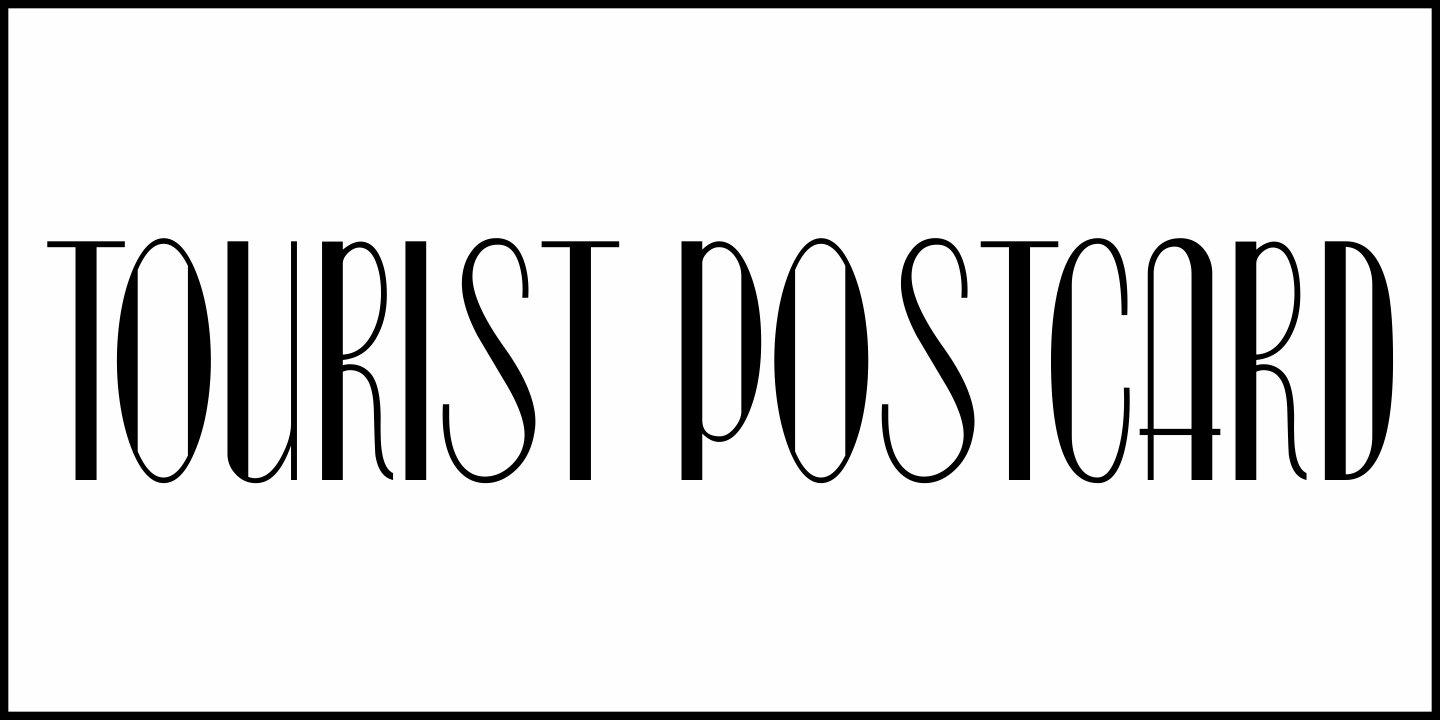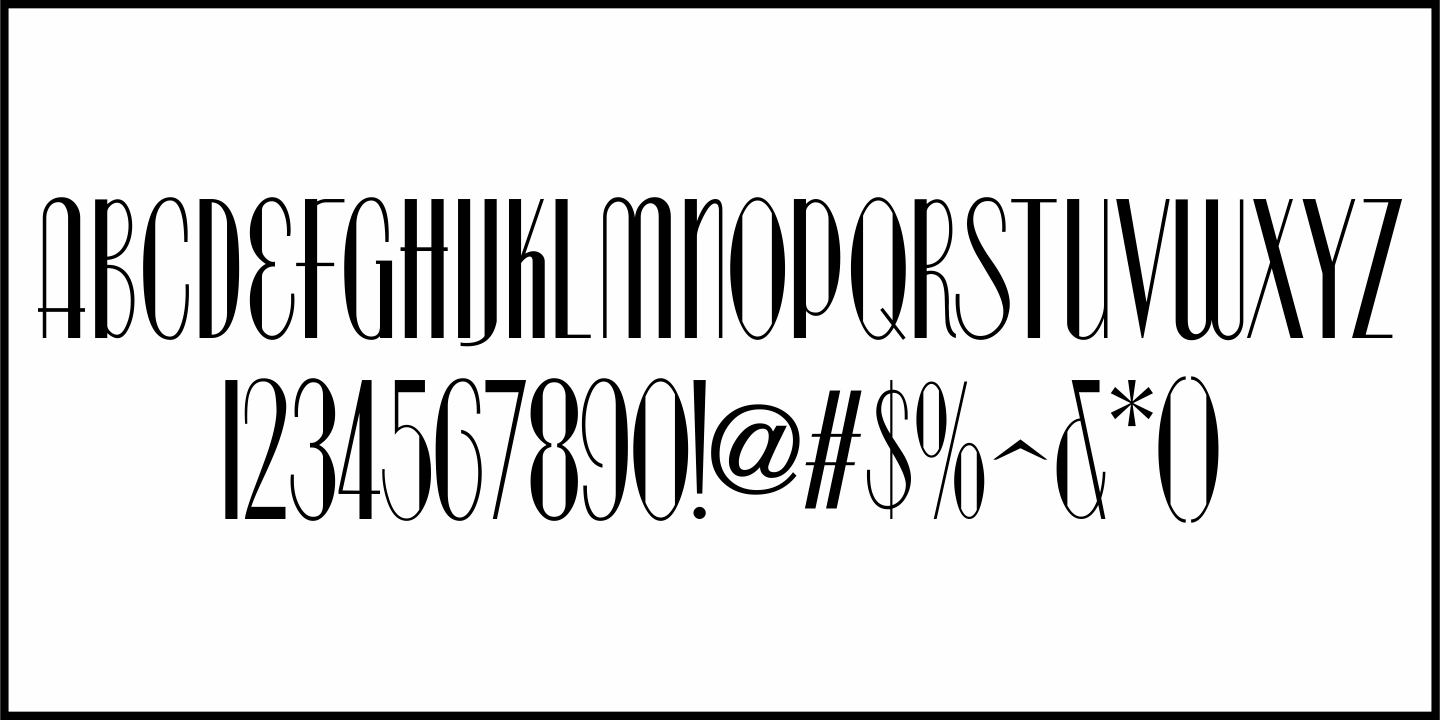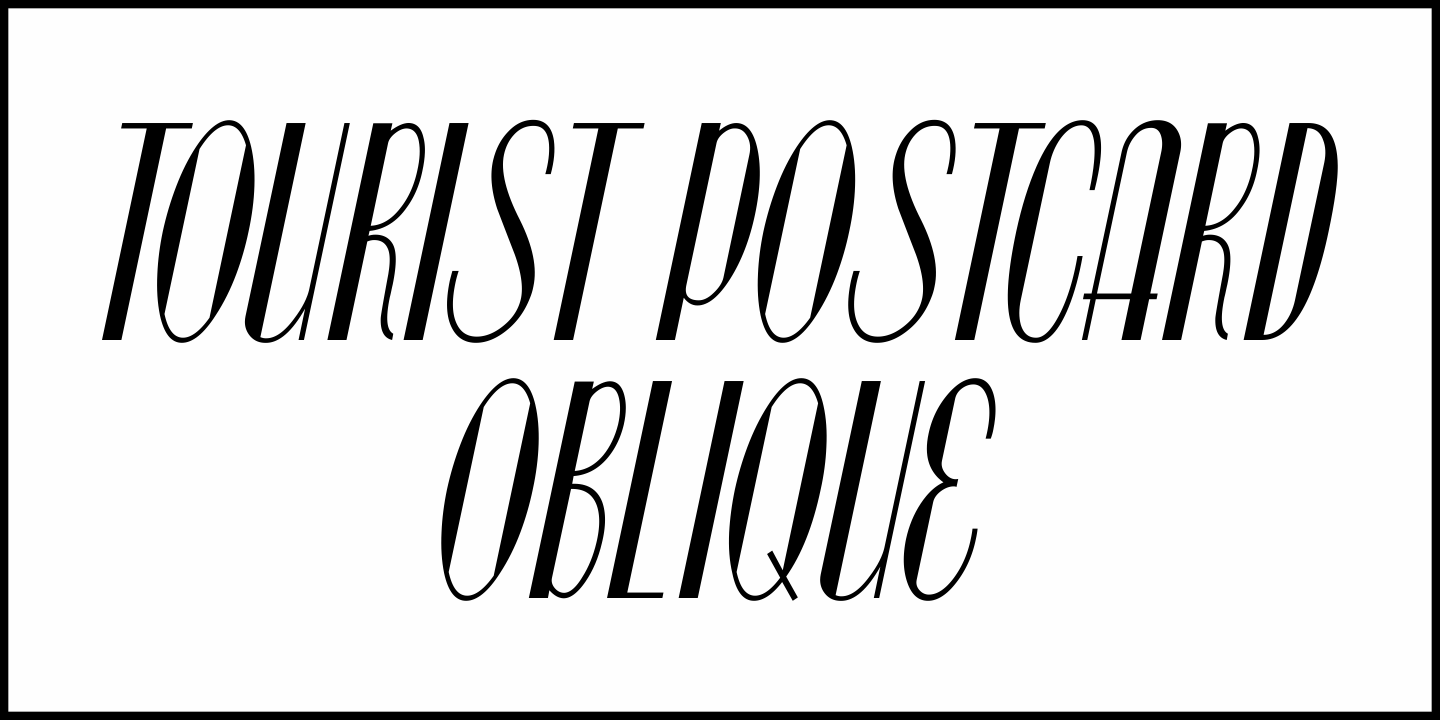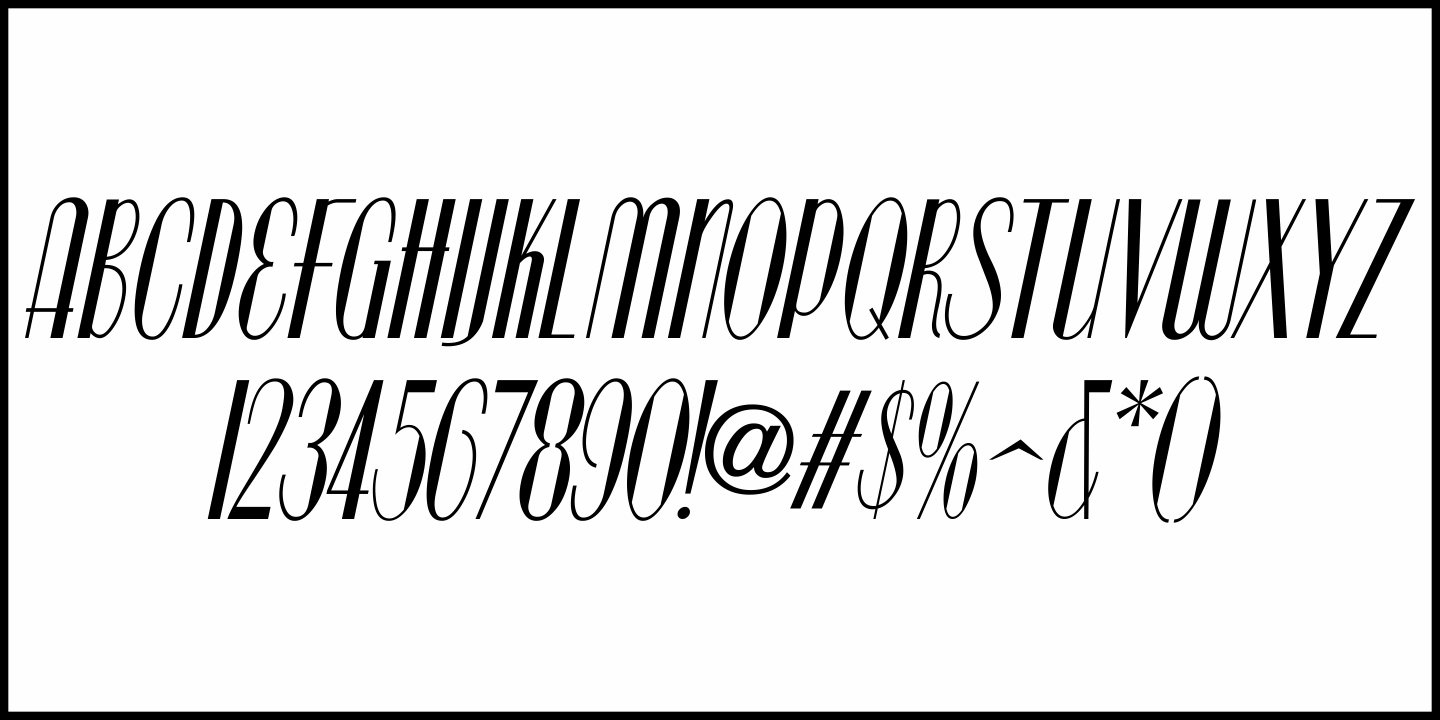
Tourist Postcard
Alf Becker graced many issues of “Signs of the Times” (a trade magazine for the sign industry) with his innovative hand lettered alphabets for others to use as design inspirations.
His 134th submission was titled “Post Card Type”, a condensed thick-and-thin stylized Art Deco design.
This served as the inspiration for Tourist Postcard JNL, which is available in both regular and oblique versions.